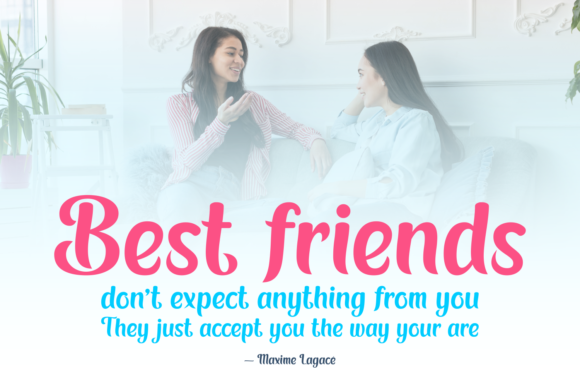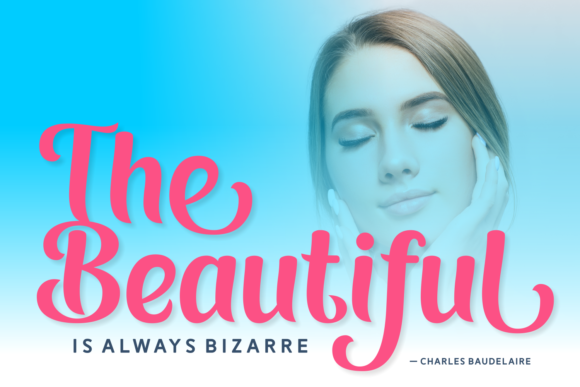
Bright Cibela Font
db-ku.com - Script & Handwritten -- Bright Cibela is a cool, detailed and whimsical handwritten font. This font is PUA encoded which means you can access all of the glyphs and swashes with ease! Add it confidently to your favorite creations and let yourself be amazed by the outcome generated.